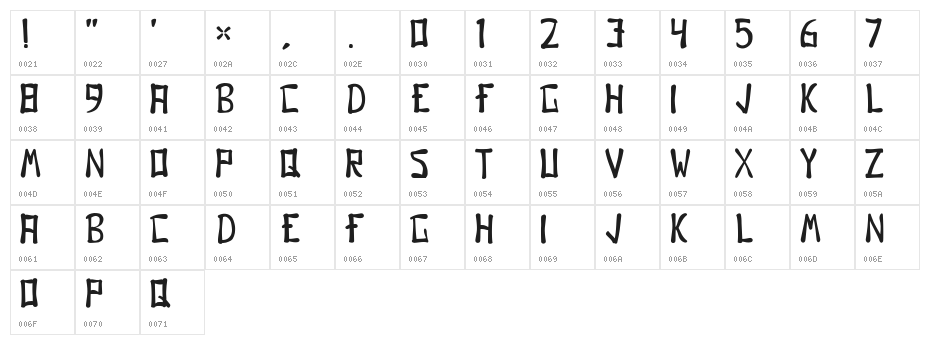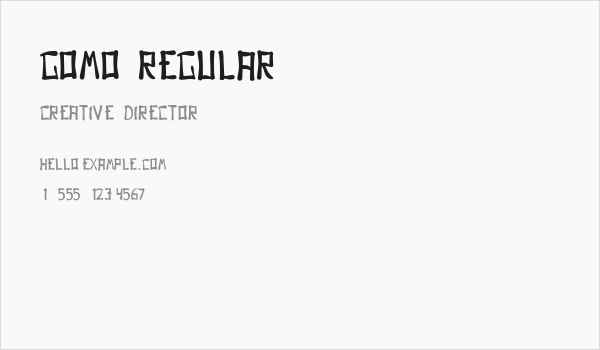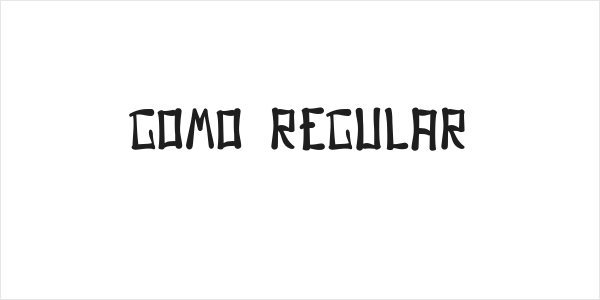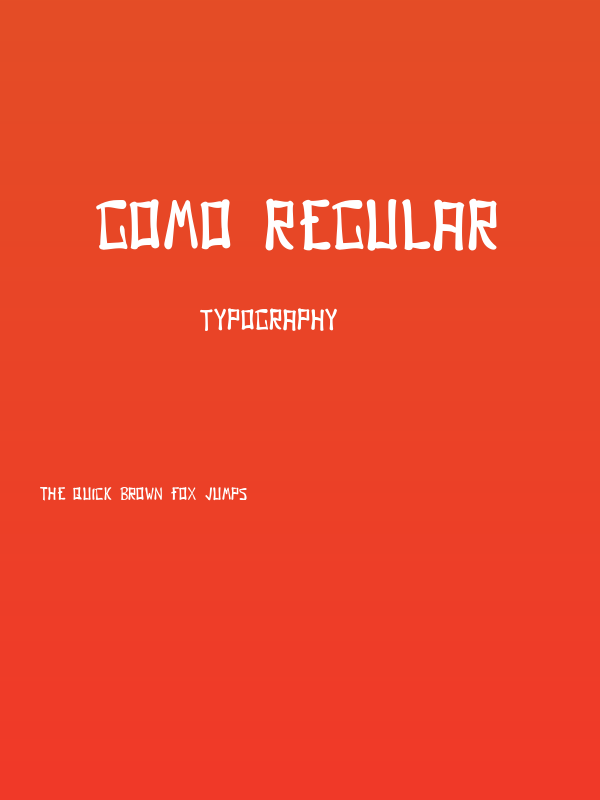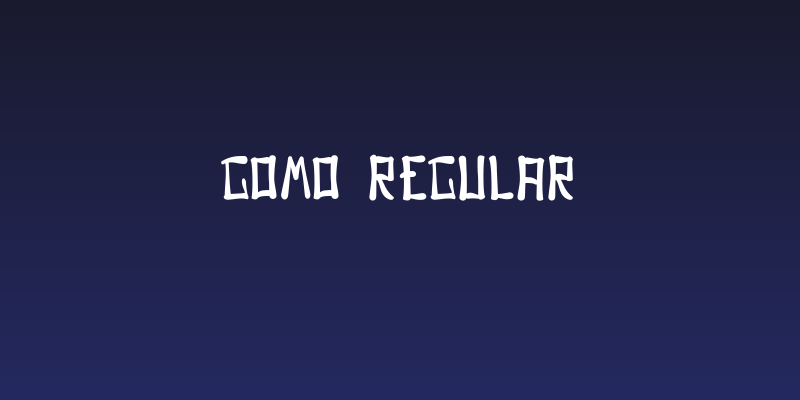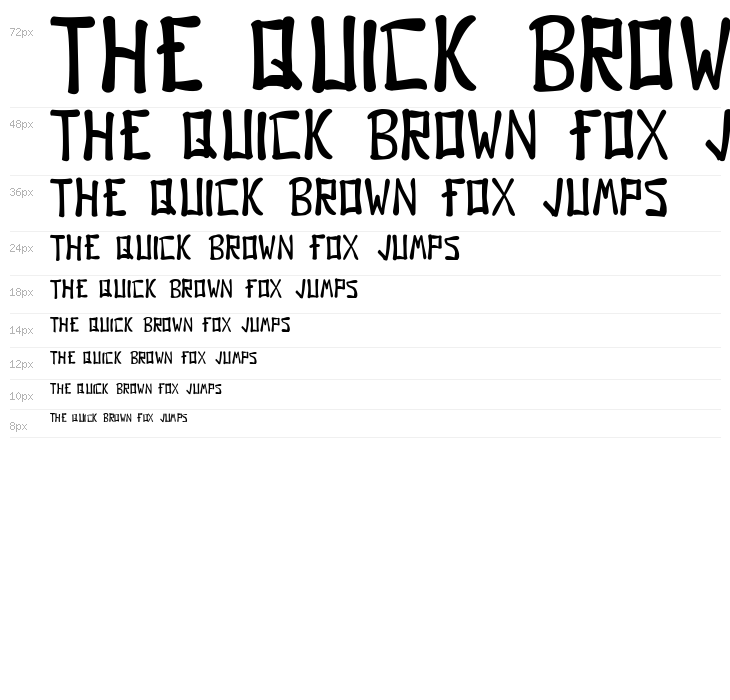
Gomo Regular Font
Gomo Regular Description
This font exhibits a playful and dynamic style with a hand-drawn appearance. The characters are bold and slightly irregular, giving them a whimsical and artistic feel. The strokes are thick and consistent, creating a strong visual impact. The uppercase and lowercase letters maintain a cohesive look, while the numbers and special characters blend seamlessly with the overall design. The font's unique character shapes and lively energy make it stand out, offering a creative and informal vibe.
| Proposed Projects | Ideal for children's books, creative posters, playful branding, and artistic projects. |